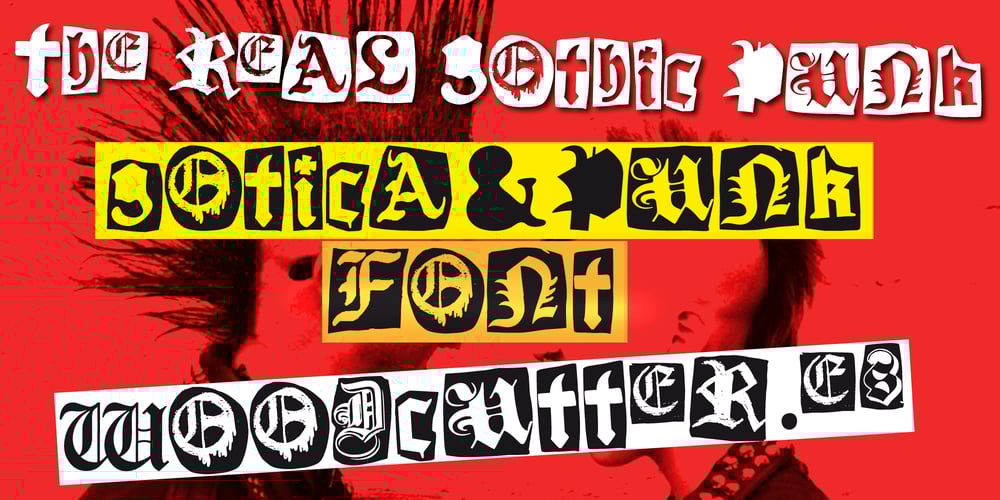
The Real Gothic Punk Font Family was designed by Jordi Manero and published by Woodcutter. The Real Gothic Punk contains 1 styles and family package options. “The Real Gothic Punk” is an all-uppercase font with accents and a complete set of characters, perfect for conveying a pure punk aesthetic. The letters are distorted, giving them a sense of controlled chaos and rebellion. The lowercase letters are boxed in, providing a unique visual structure that enhances the font’s irreverent character. This style is the perfect blend of street punk and modern gothic, ideal for provocative designs, posters, album covers, and any project that aims for a bold visual impact.